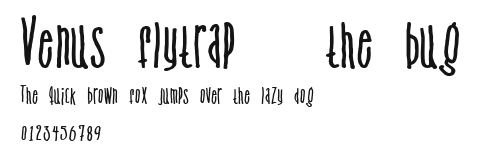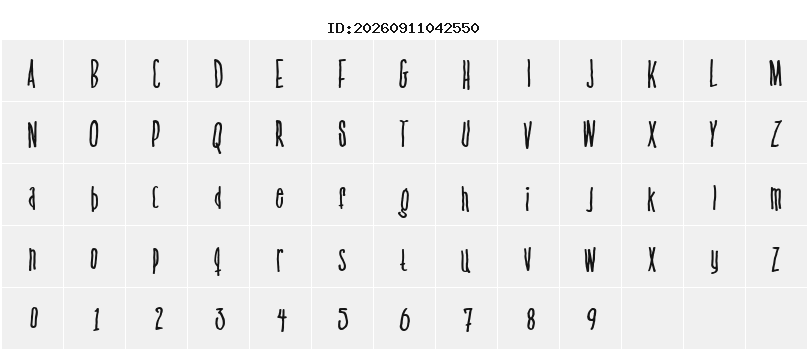
About Venus flytrap the bug.ttf
Venus flytrap the bug.ttf is a modern, elegant sans-serif font designed for ultimate readability and visual harmony. Perfect for branding, headlines, web design, and print materials.